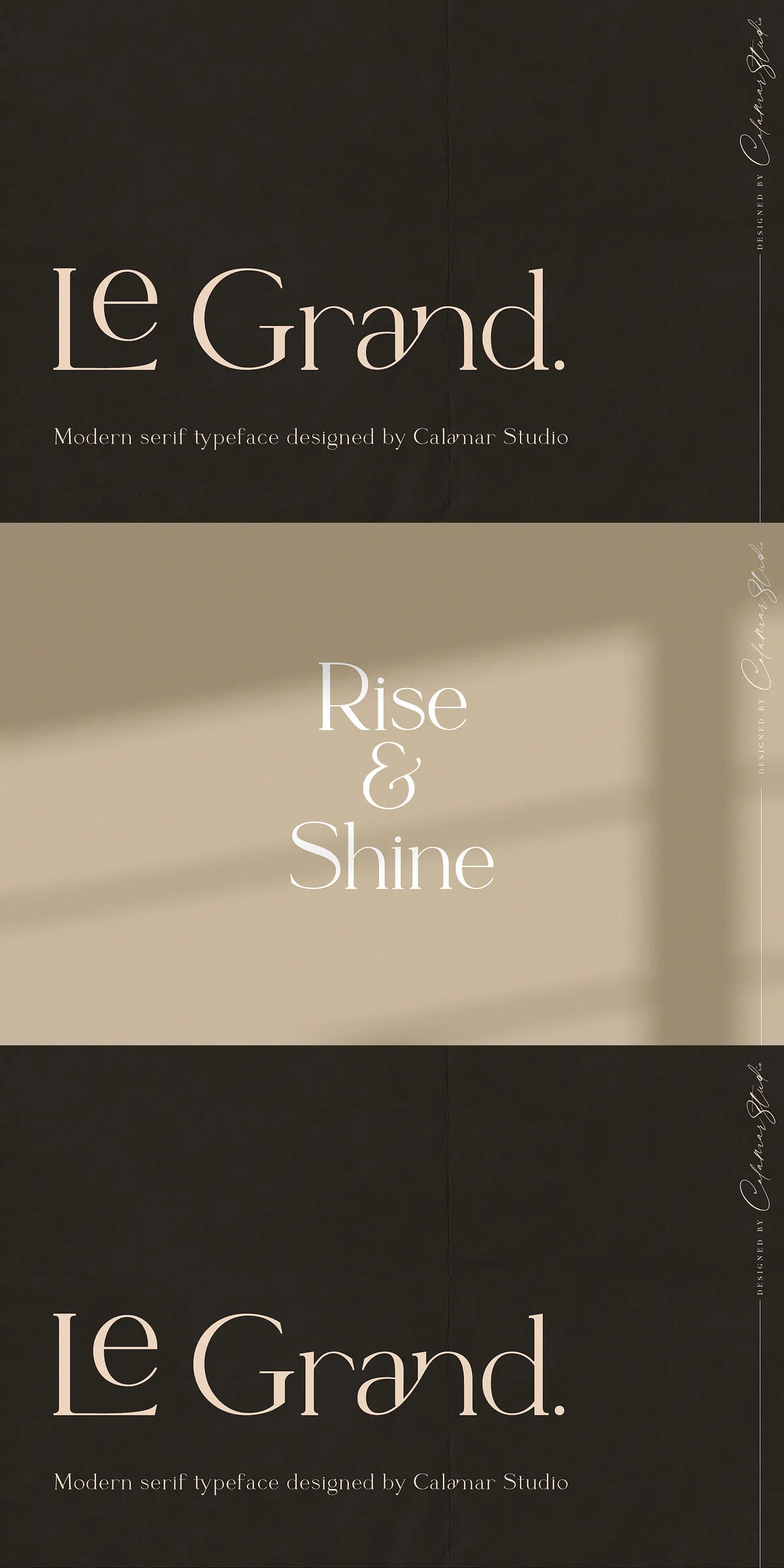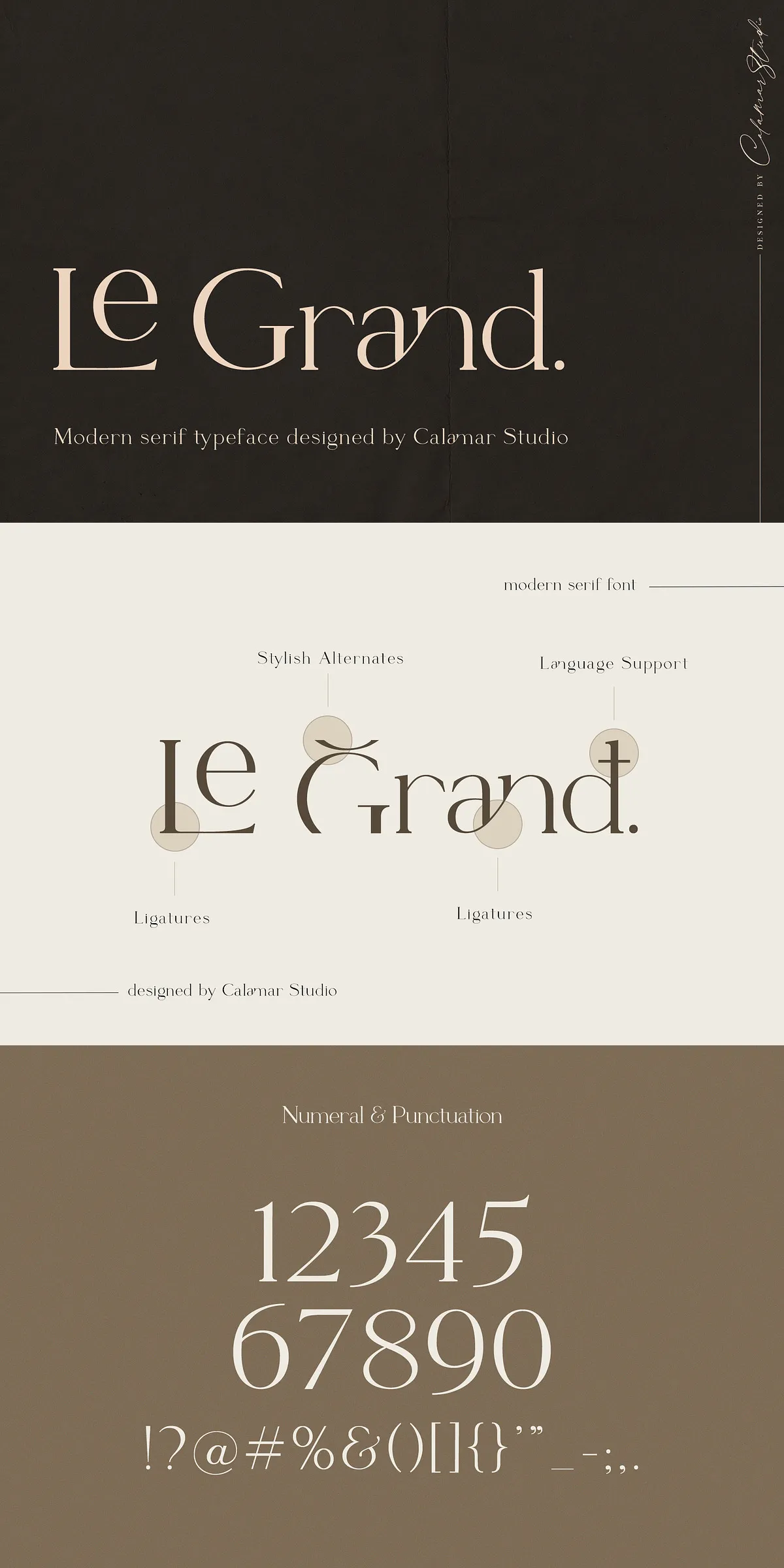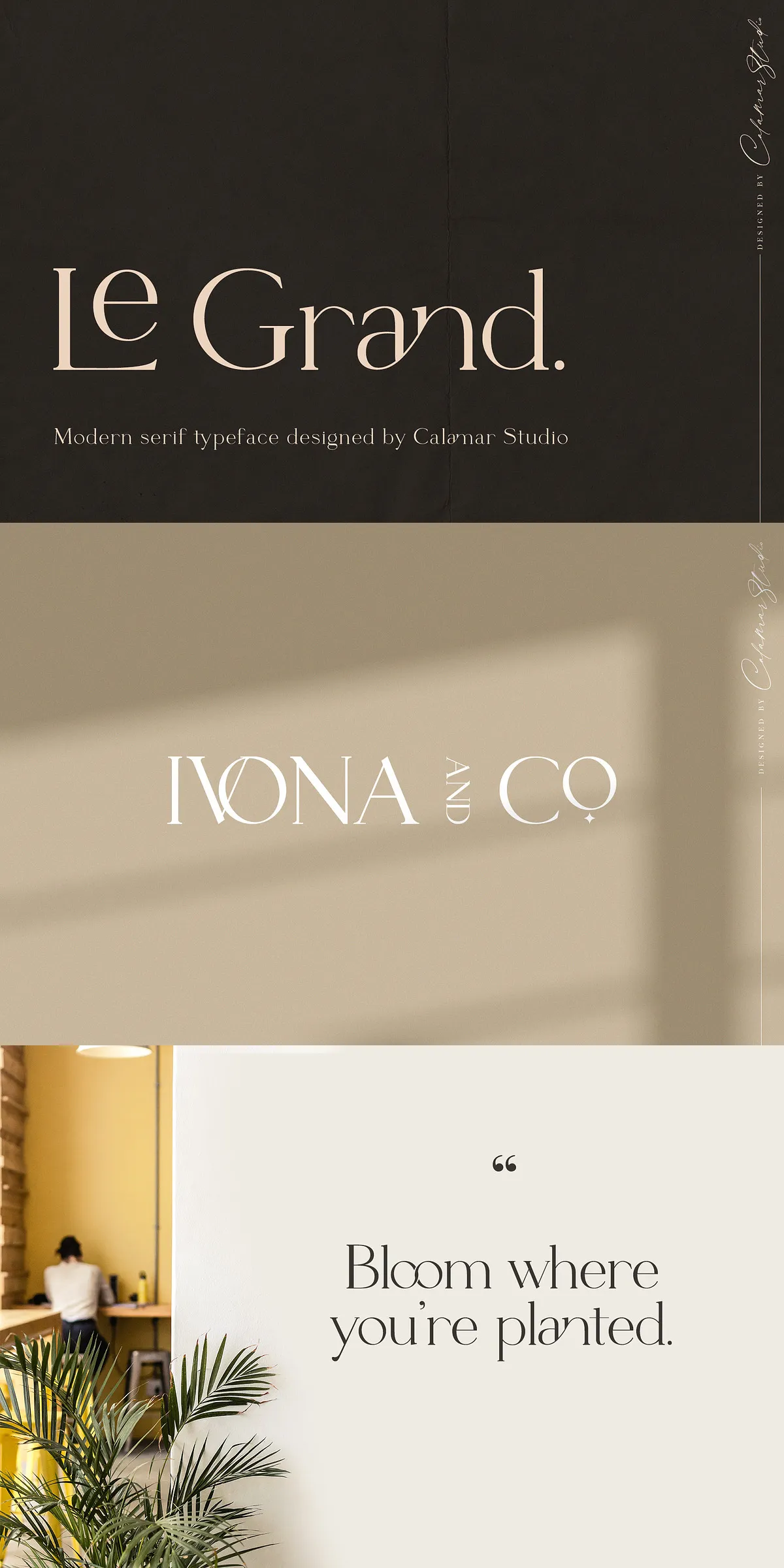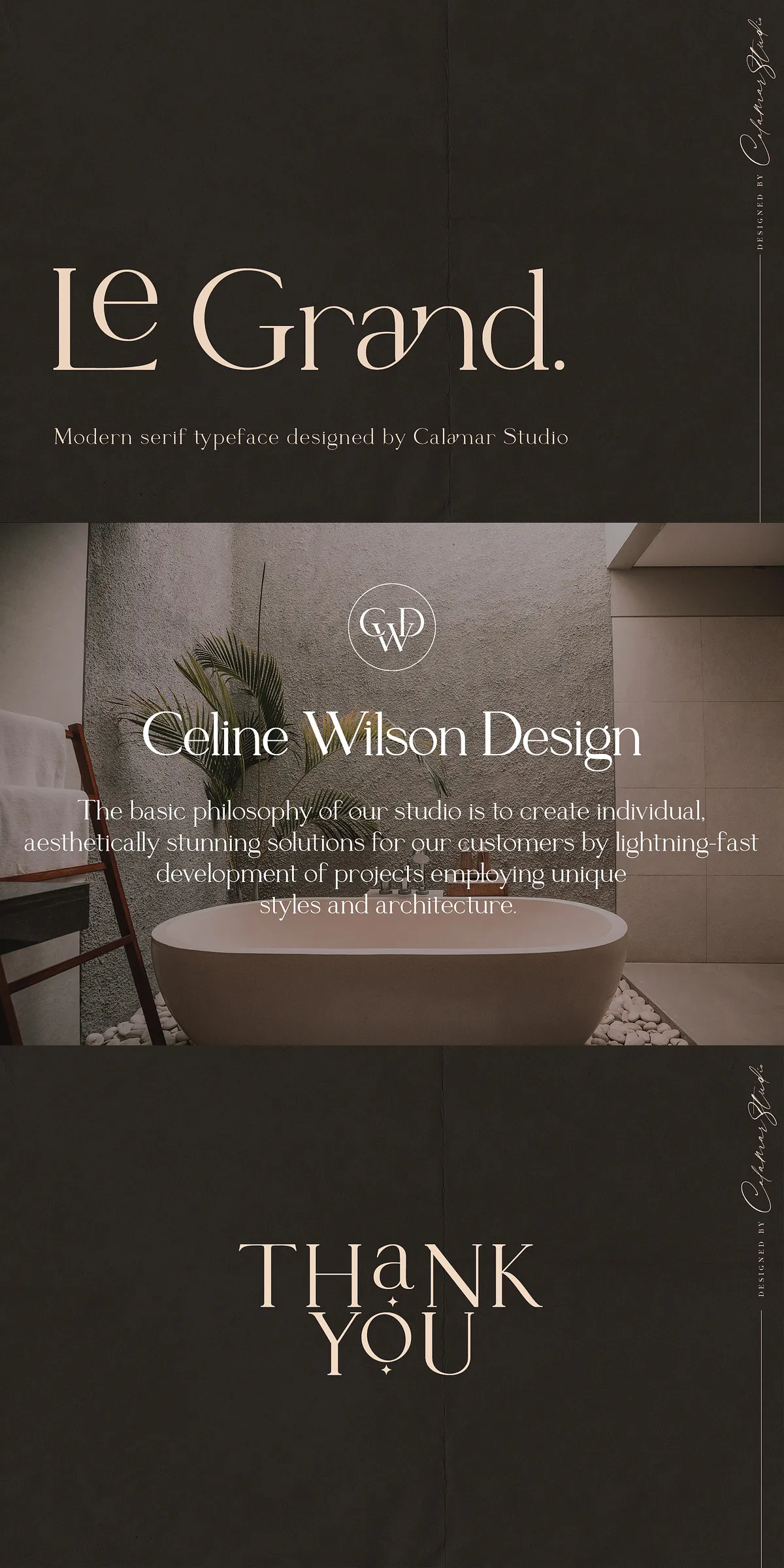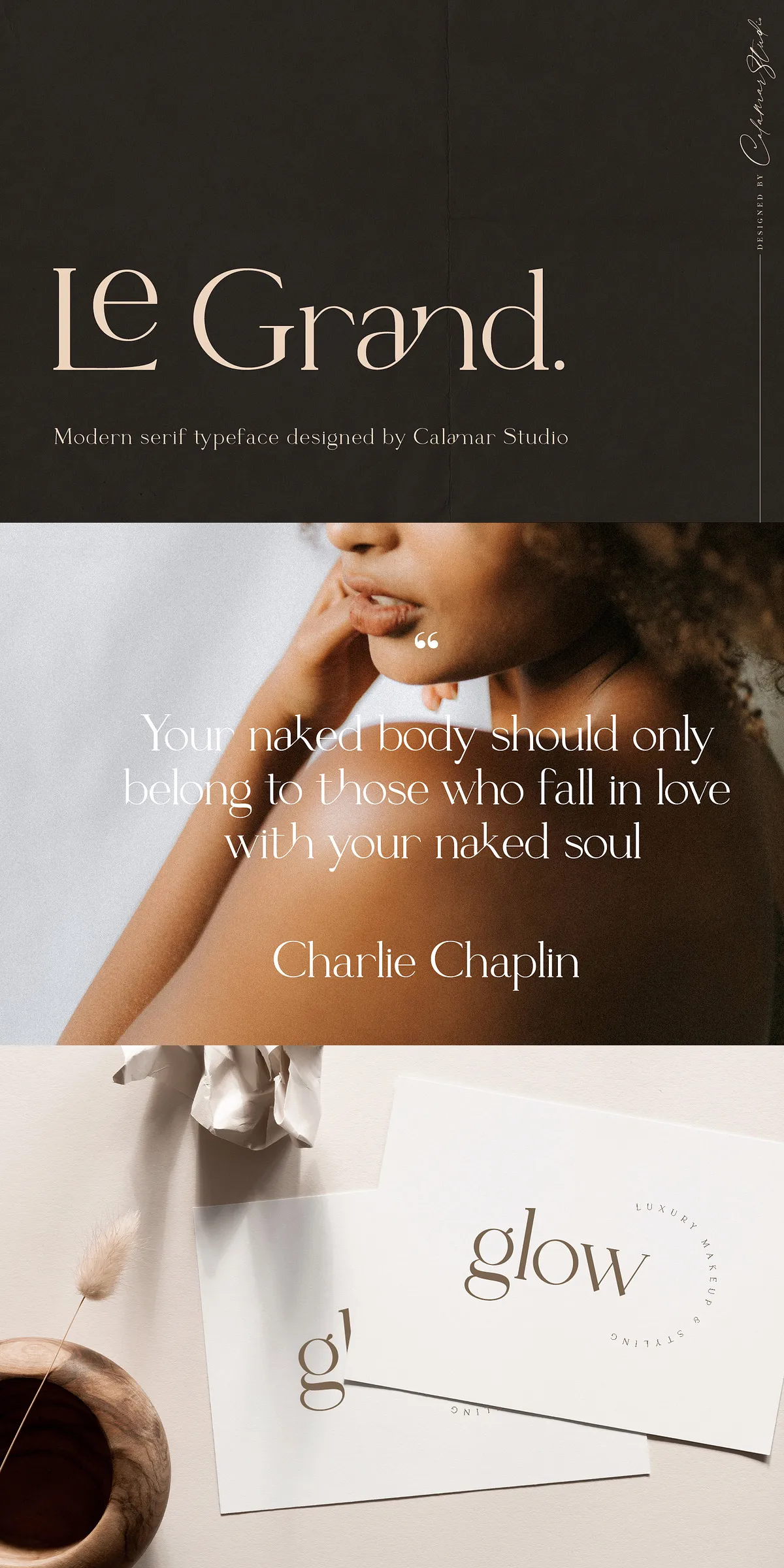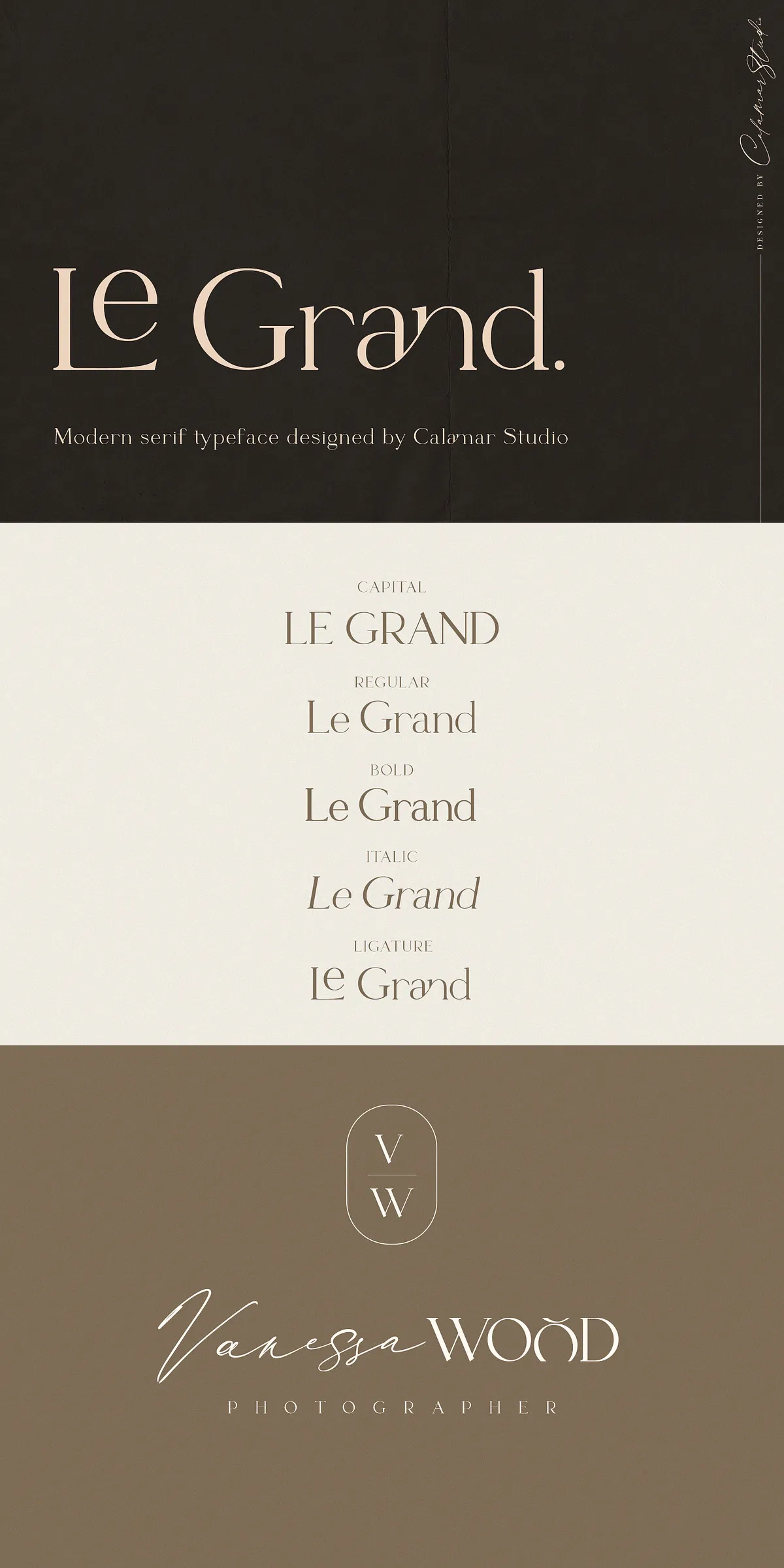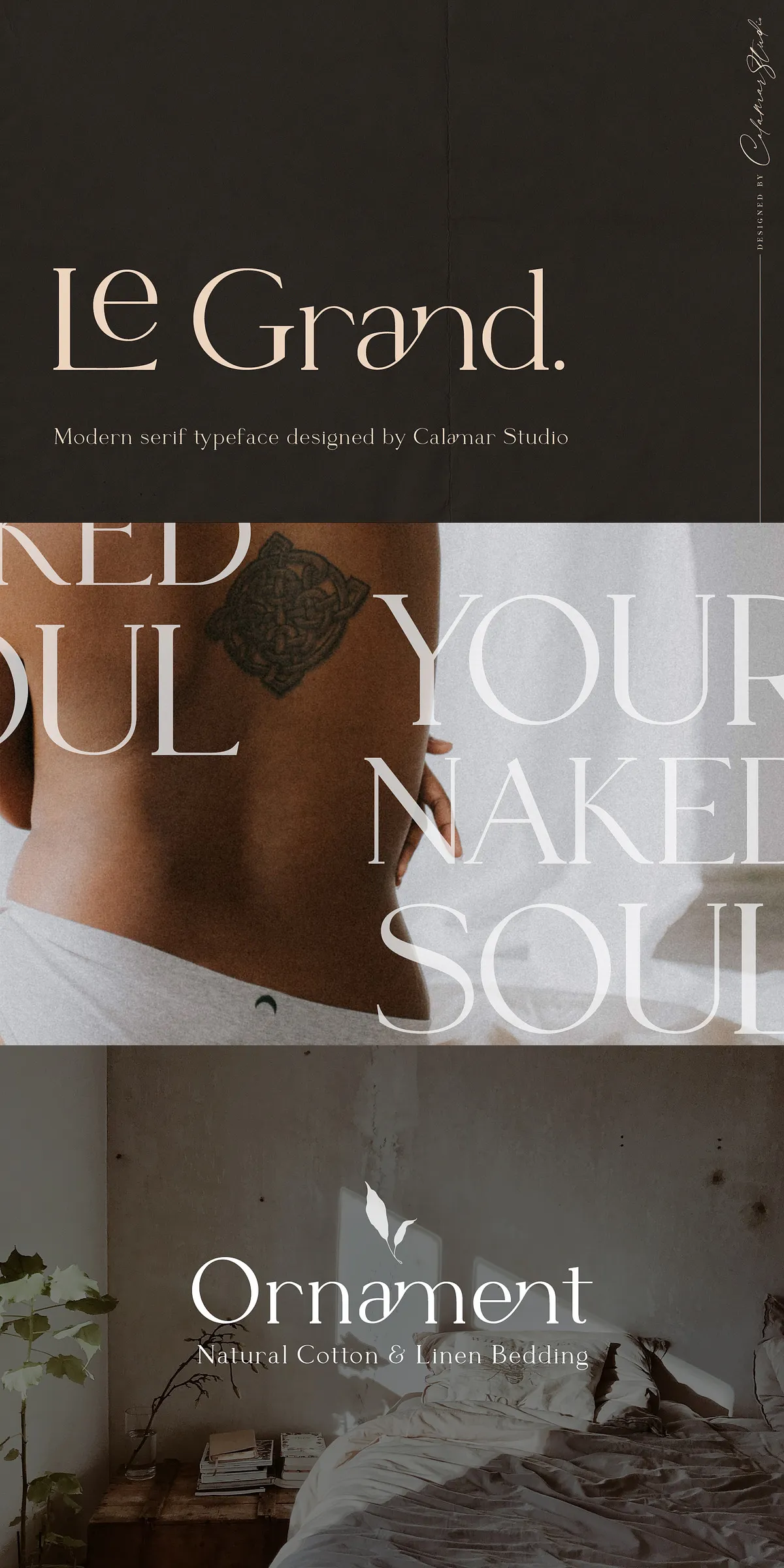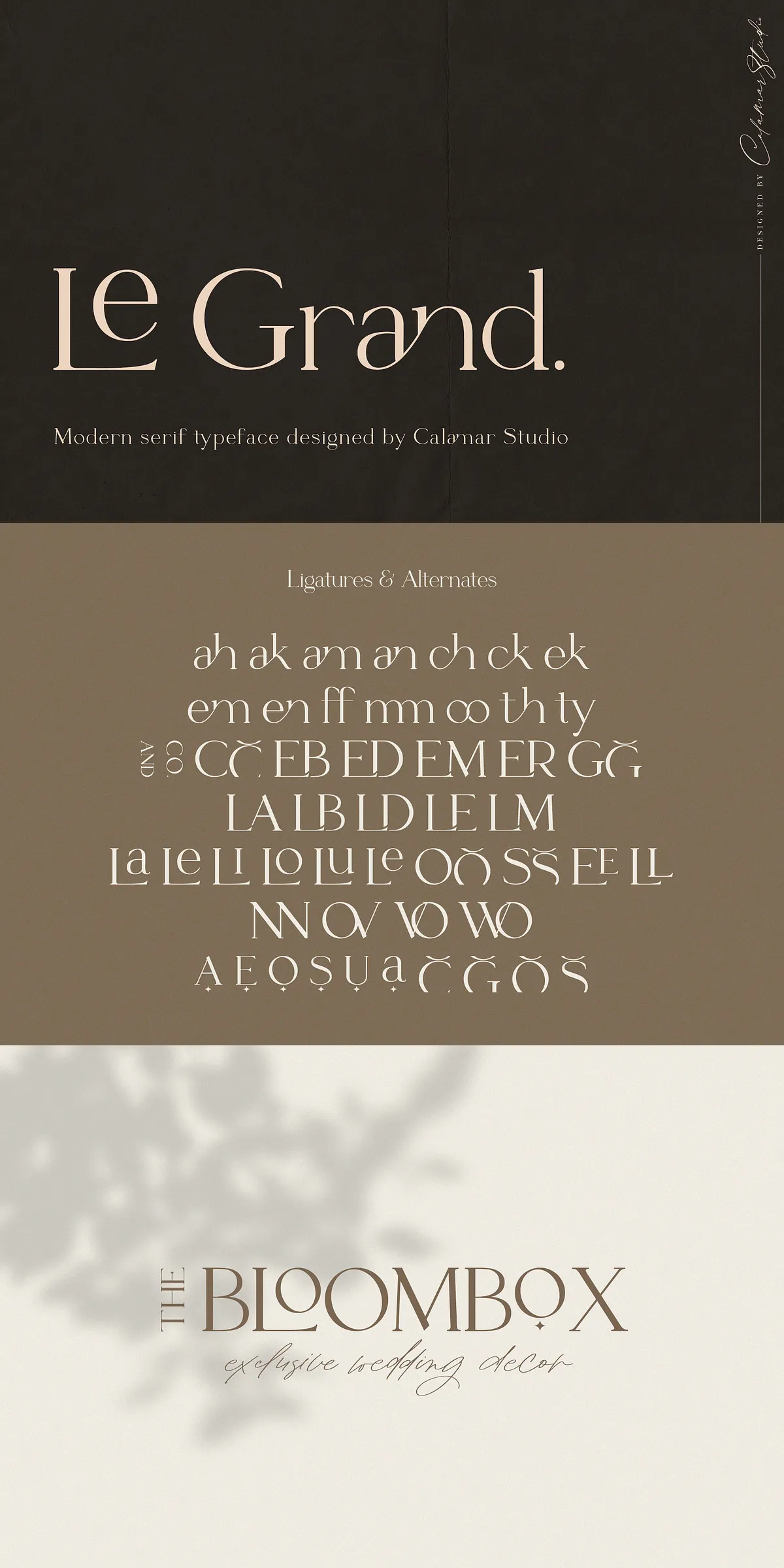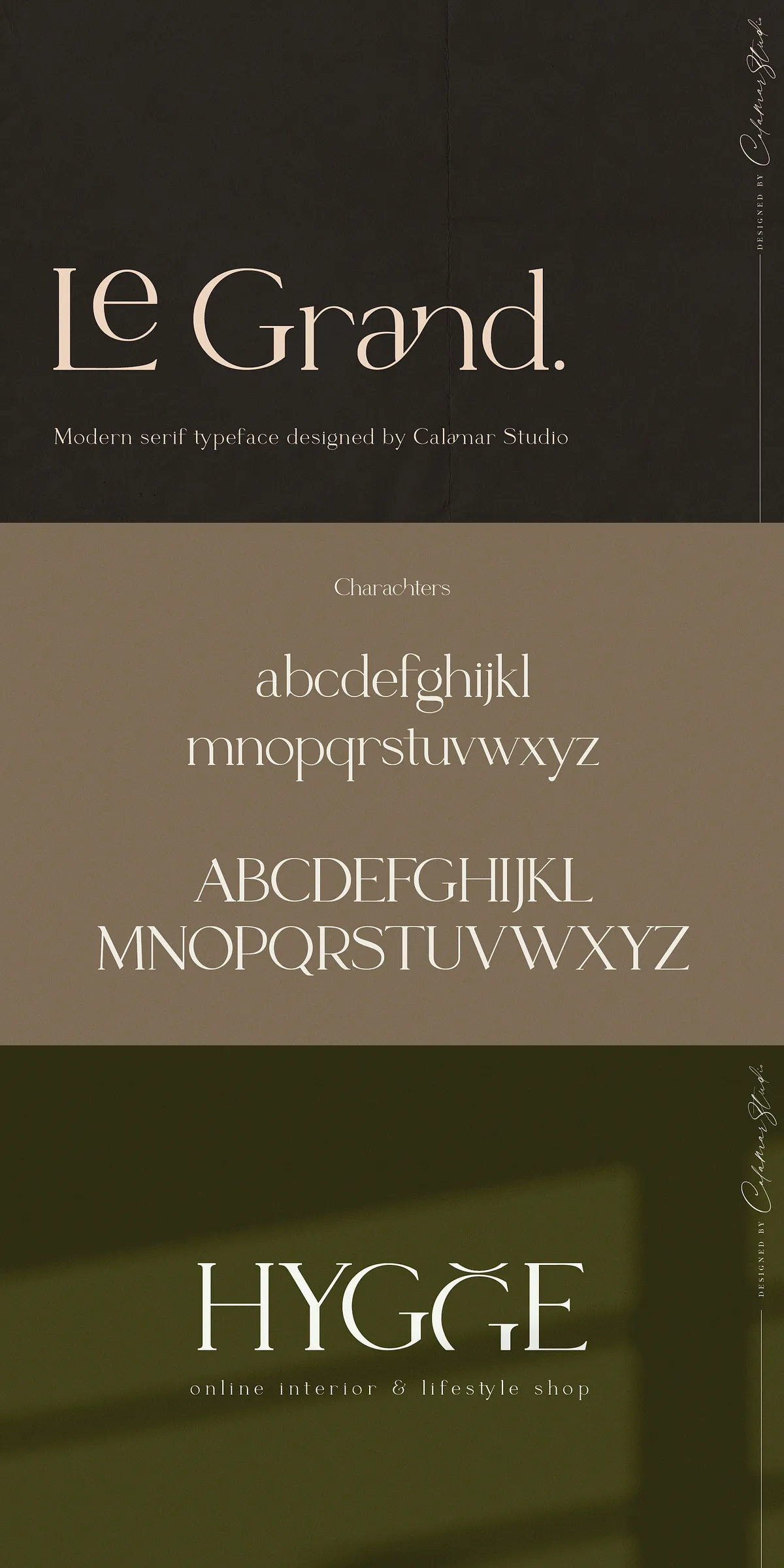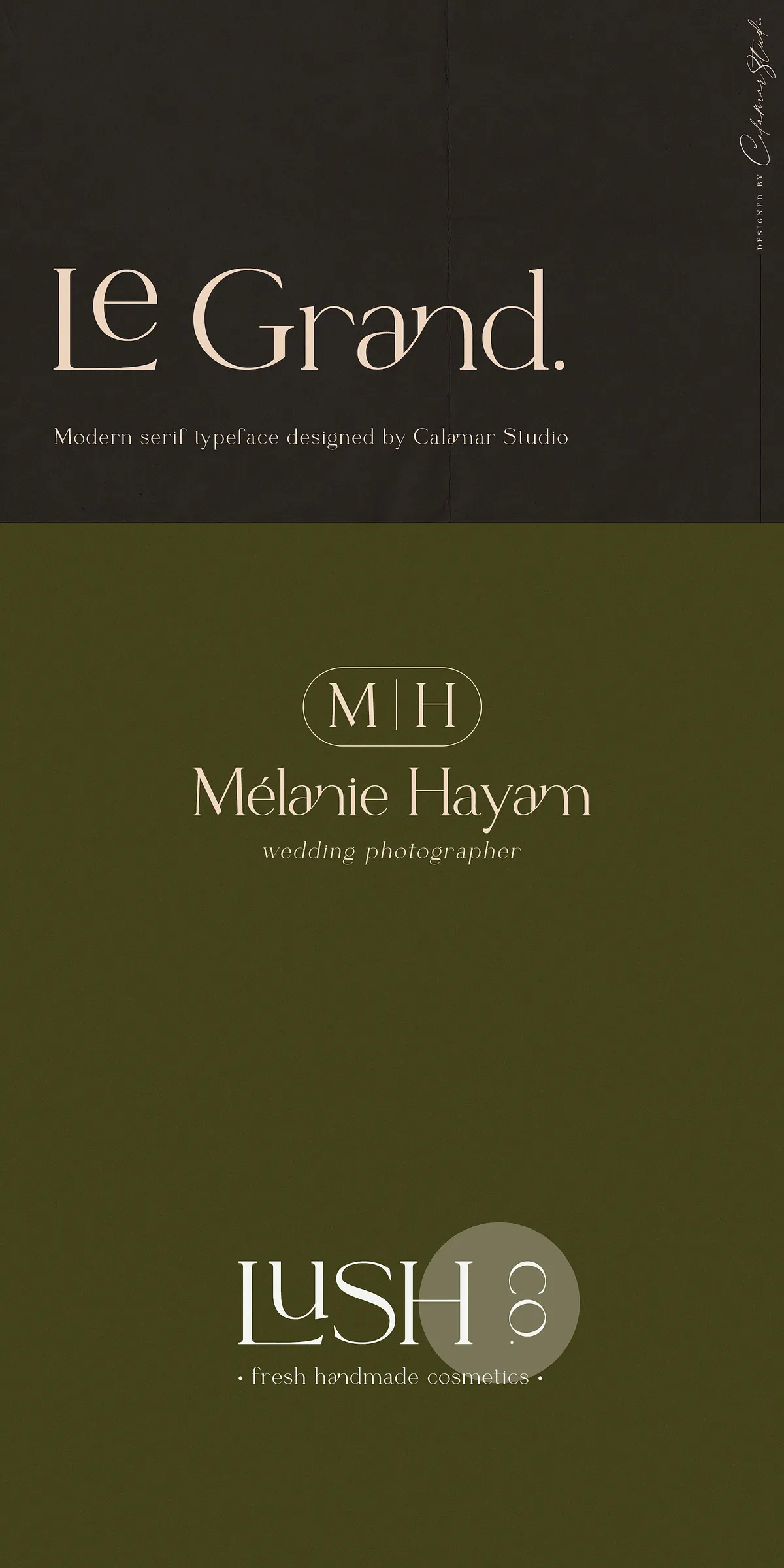
Unleash the quiet power of harmony in typography with Le Grand — a stunningly elegant and modern typeface designed to transform your creative projects with seamless grace. Every curve, connection, and stroke is crafted to deliver a look that’s both refined and effortlessly expressive. Whether you’re designing a luxury brand identity, a dreamy wedding stationery suite, or a bold editorial pull quote, Le Grand turns text into art.
Automatic Ligatures That Elevate Every Letter
What truly defines Le Grand is its 42 beautifully crafted ligatures — designed to naturally link letters in flowing, rhythmic combinations. These aren’t hidden features or optional gimmicks; they turn on automatically in any standard design application. No need to open Glyph panels or use special software. Just type, and watch the letters dance together as intended.
Imagine a brand logo where the letters seem to breathe as one. Picture a wedding invitation where the names flow like ink on silk. Or visualize a magazine cover where the headline pulls the eye in with quiet confidence. That’s the magic of Le Grand — where typography feels alive, natural, and deeply intentional.
Designed for Creativity, Built for Real-World Use
Le Grand isn’t just beautiful — it’s built for designers who demand performance alongside aesthetics. The font family includes five powerful variants:
- Le Grand Regular — The foundation of timeless elegance.
- Le Grand Italic — Ideal for romantic, creative, or expressive text.
- Le Grand Bold — Makes your message louder, bolder, and impossible to ignore.
- Le Grand Capital — A dedicated version optimized for uppercase letters, perfect for titles and monograms.
- Le Grand Ligature — A full version packed with all ligatures and alternate characters, designed for maximum visual impact.
Rich Character Set for Unmatched Flexibility
Beyond its show-stopping ligatures, Le Grand delivers a complete and professional typographic toolkit:
- Full Uppercase & Lowercase with contextual alternates for dynamic variation.
- Advanced Alternates — Switch between stylistic variations for unique text treatment.
- Proportional Figures — Clean, readable numbers that integrate perfectly with the typeface.
- Punctuation & Symbols — A full set to maintain polished layouts.
- Multilingual Support — Includes Latin, Greek, and Cyrillic characters, making it ideal for international branding.
No matter the project, Le Grand ensures consistency, clarity, and style — all without compromising on usability.
Perfect for Branding, Weddings, and Editorial Impact
Le Grand is engineered for moments that matter:
- Logo Design: Create memorable brand identities with a sense of quiet luxury and timeless appeal.
- Wedding Monograms & Invitations: Add a touch of refined romance to one of life’s most precious occasions.
- Editorial Pull Quotes: Make headlines pop with fluid, expressive lettering that draws the reader in.
- Typography in Packaging: Give product labels and boxes a premium, handcrafted feel.
Ready. Refined. Resonant.
Le Grand isn’t just another font — it’s a statement. A promise of craftsmanship. A commitment to beauty in every line. It’s perfect for designers who see typography not just as communication, but as emotional expression.